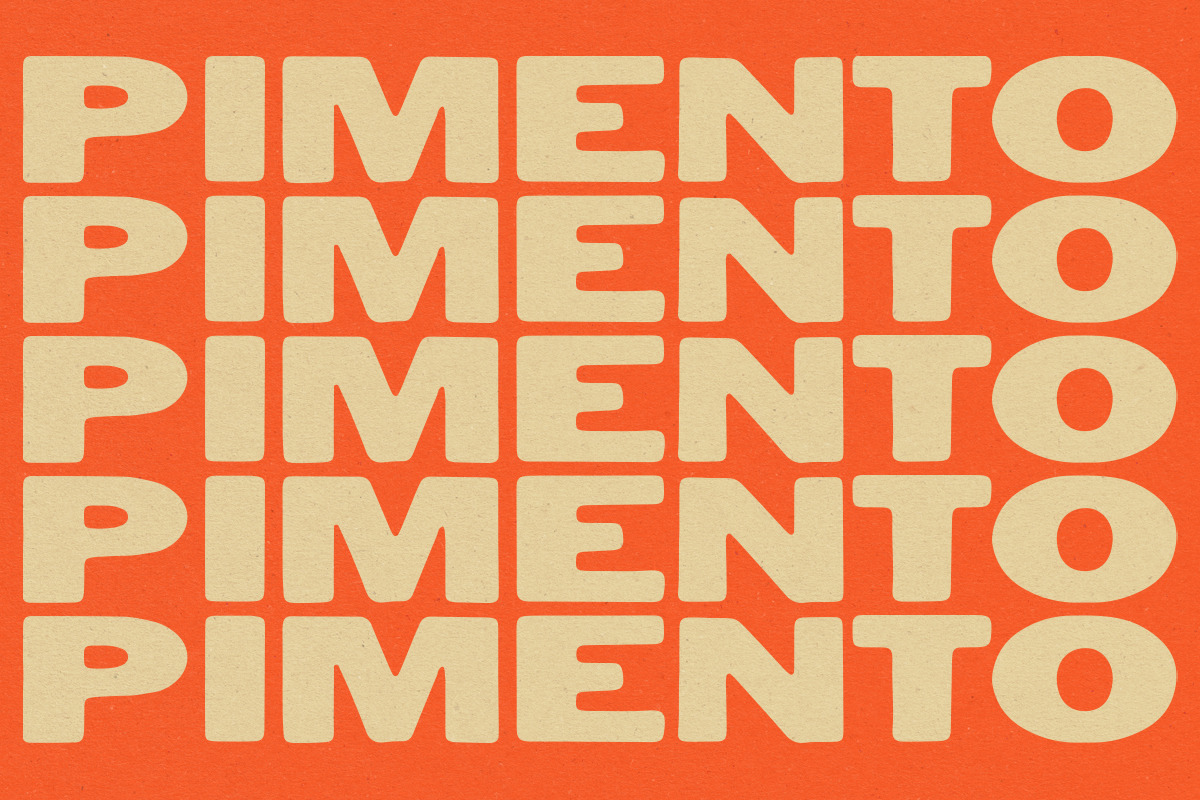
Pimento Typeface
I wanted to create the perfect bold, sans-serif, uppercase font that can be used for just about anything, and this is it. It took a lot of refining to get it exactly how I envisioned, but Pimento really turned out to be the versatile and concise typeface that I set out to make.
Includes multiple language support and punctuation.